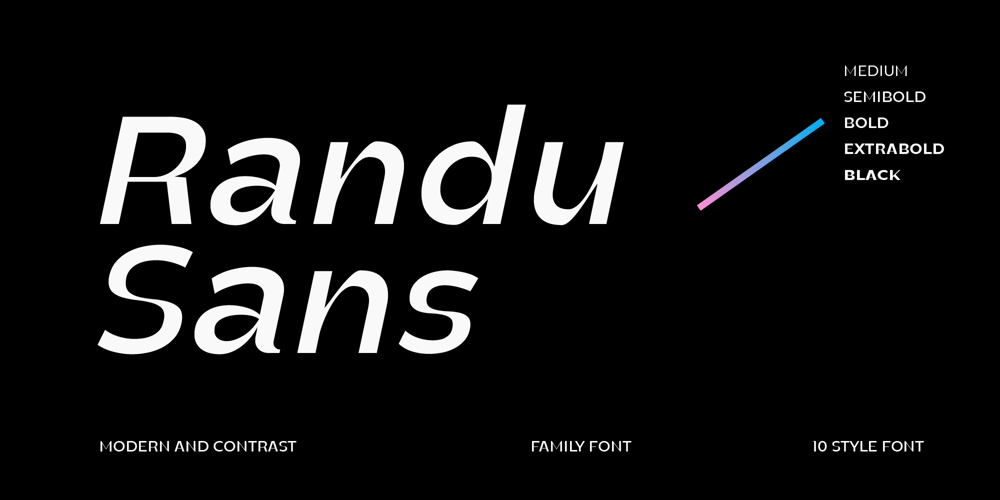
Randu Sans
Randu Sans font
Randu Sans Font Family was designed by abdul artega and published by Yukita Creative. Randu Sans contains 10 styles and family package options. Randu Sans Serif Display Font Family is a sleek, modern font family with an elegant typography style. Created with clarity and boldness in mind, this font offers a variety of bold and italic styles, providing flexibility in its use. Whether used for titles, headings, or poster designs, the Candied Sans Serif Display Font Family provides the clarity and appeal needed to hold an audience’s attention.